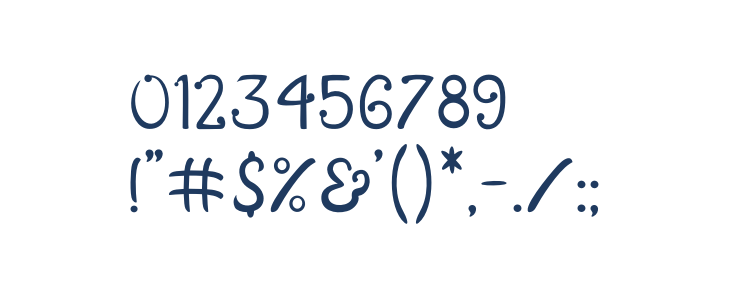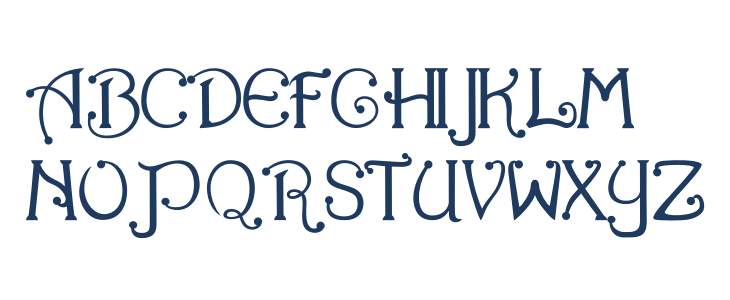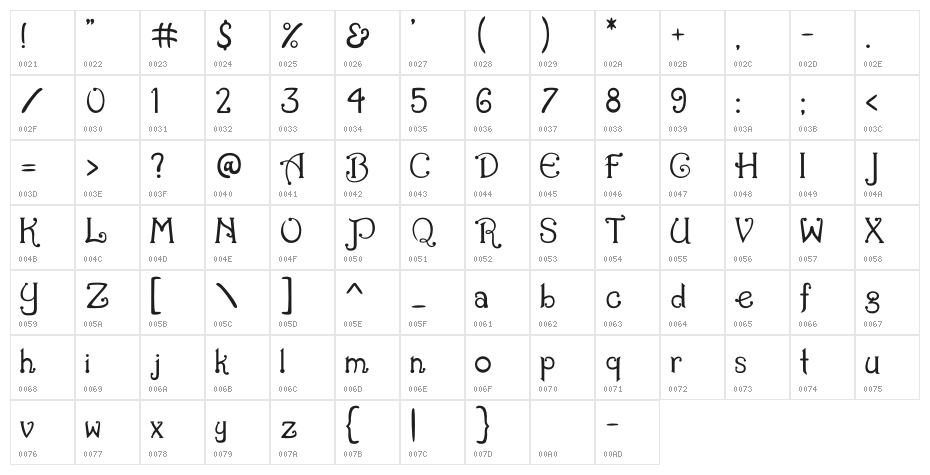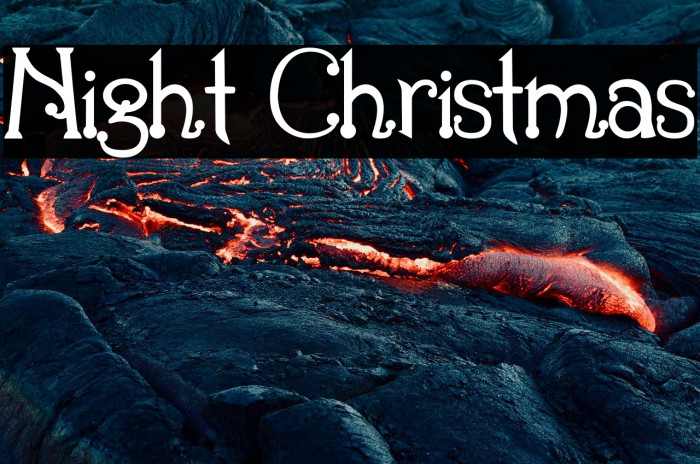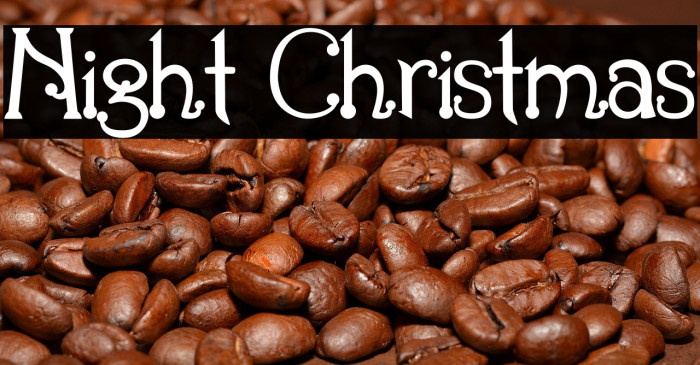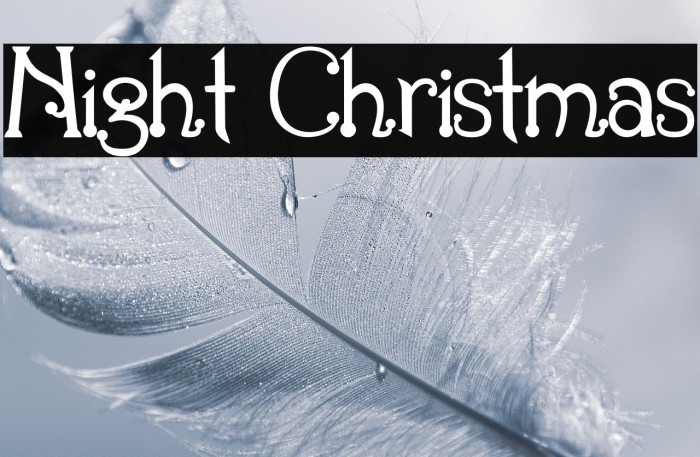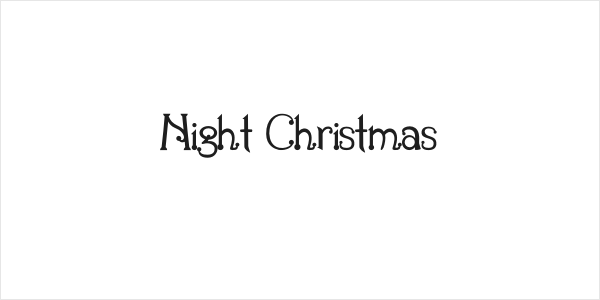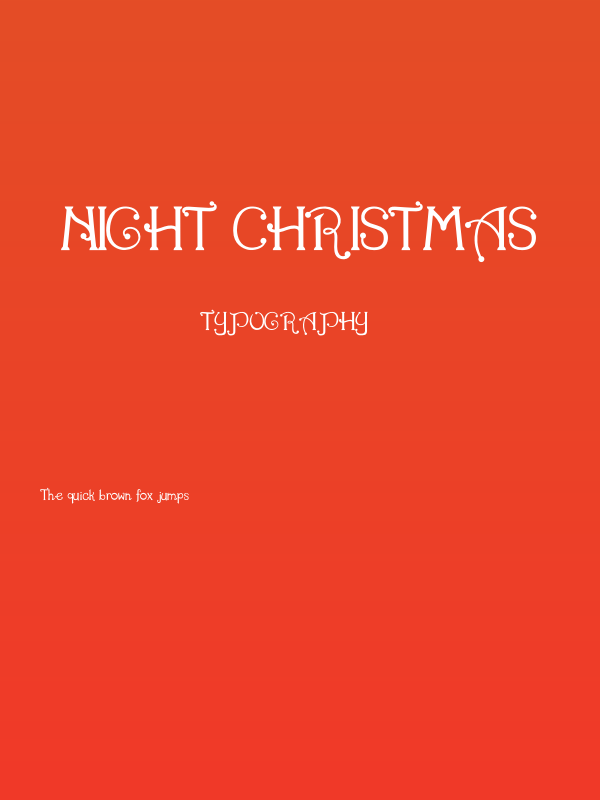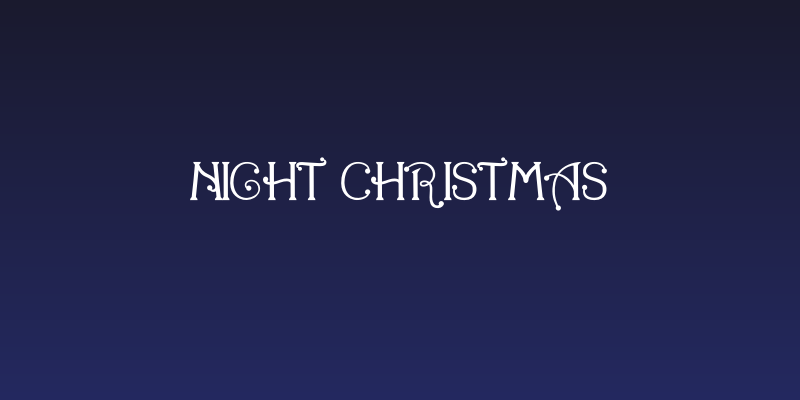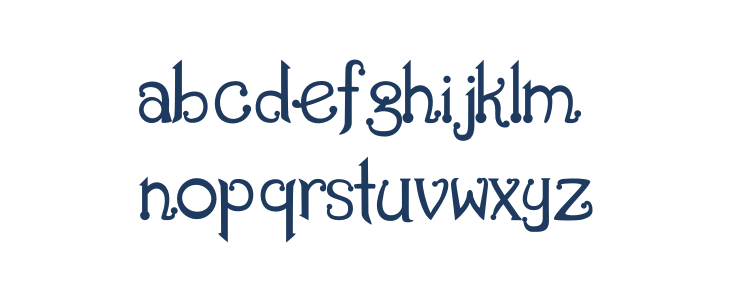
Night Christmas Font
Night Christmas Description
A whimsical decorative typeface with playful swirls and dots on terminals, featuring rounded forms and a festive, ornamental appearance. The characters are evenly spaced, with moderate stroke contrast and a hand-drawn, lively style.
| Overall Style | Decorative, Festive, Whimsical |
| Use Case | Headlines, Logos, Invitations, Posters |
| Proposed Projects | Holiday cards, party invitations, event posters, children's books, seasonal branding. |